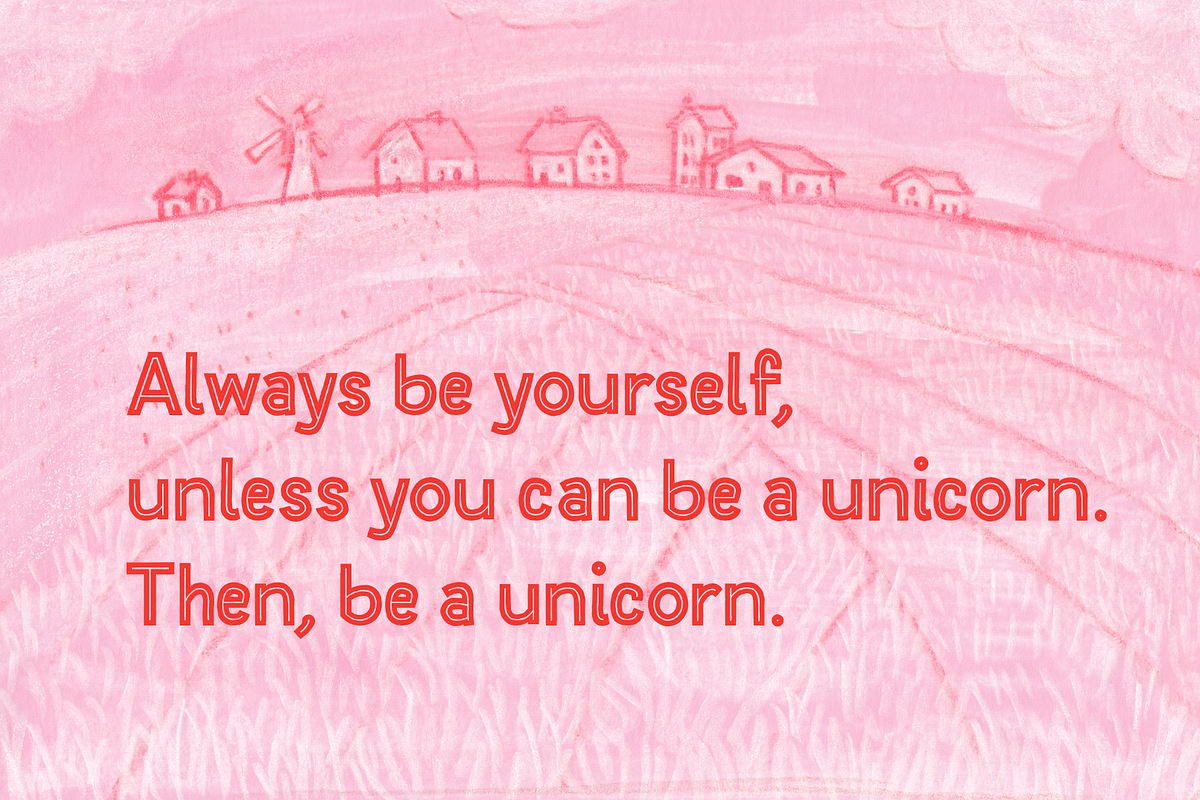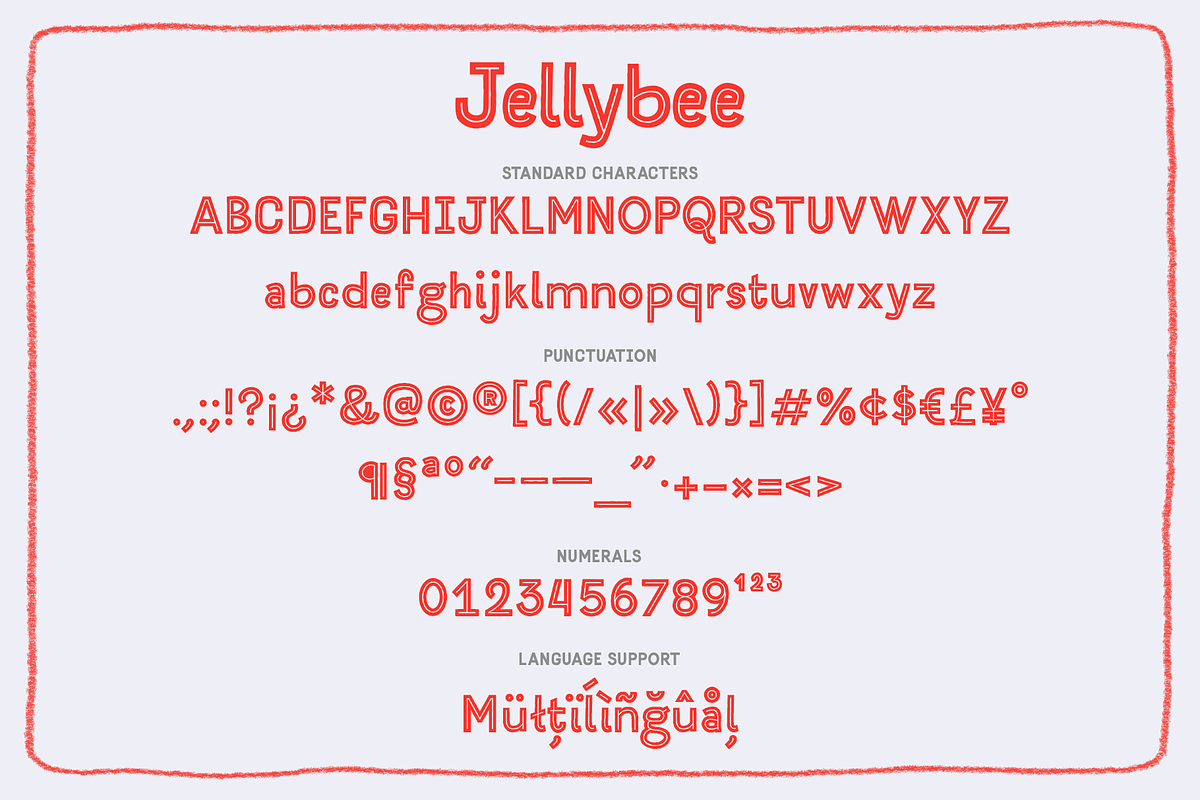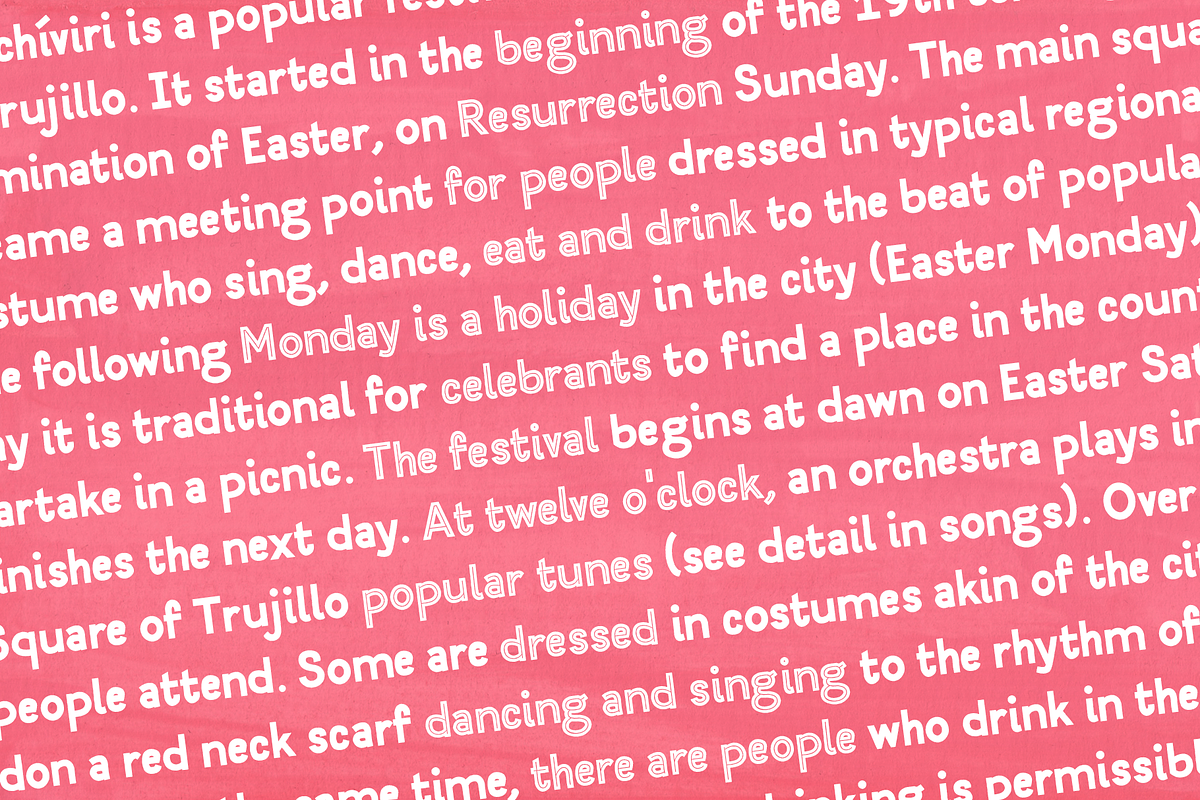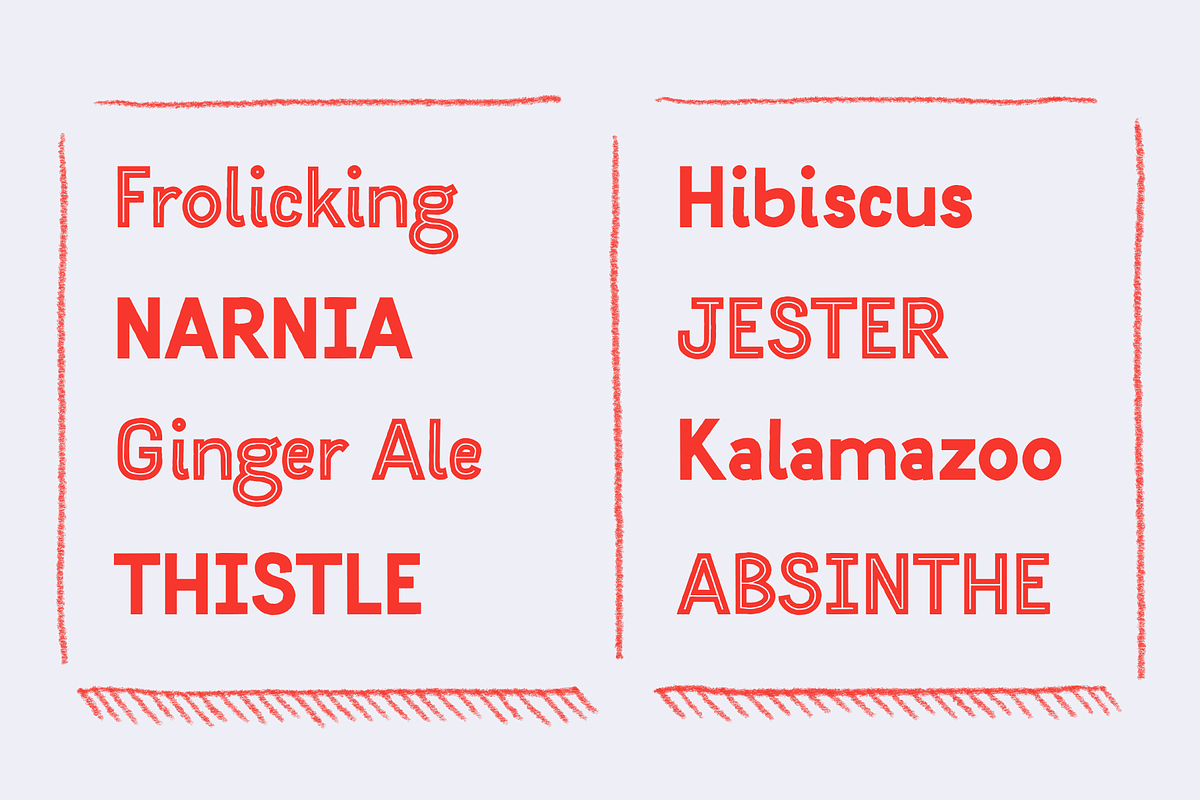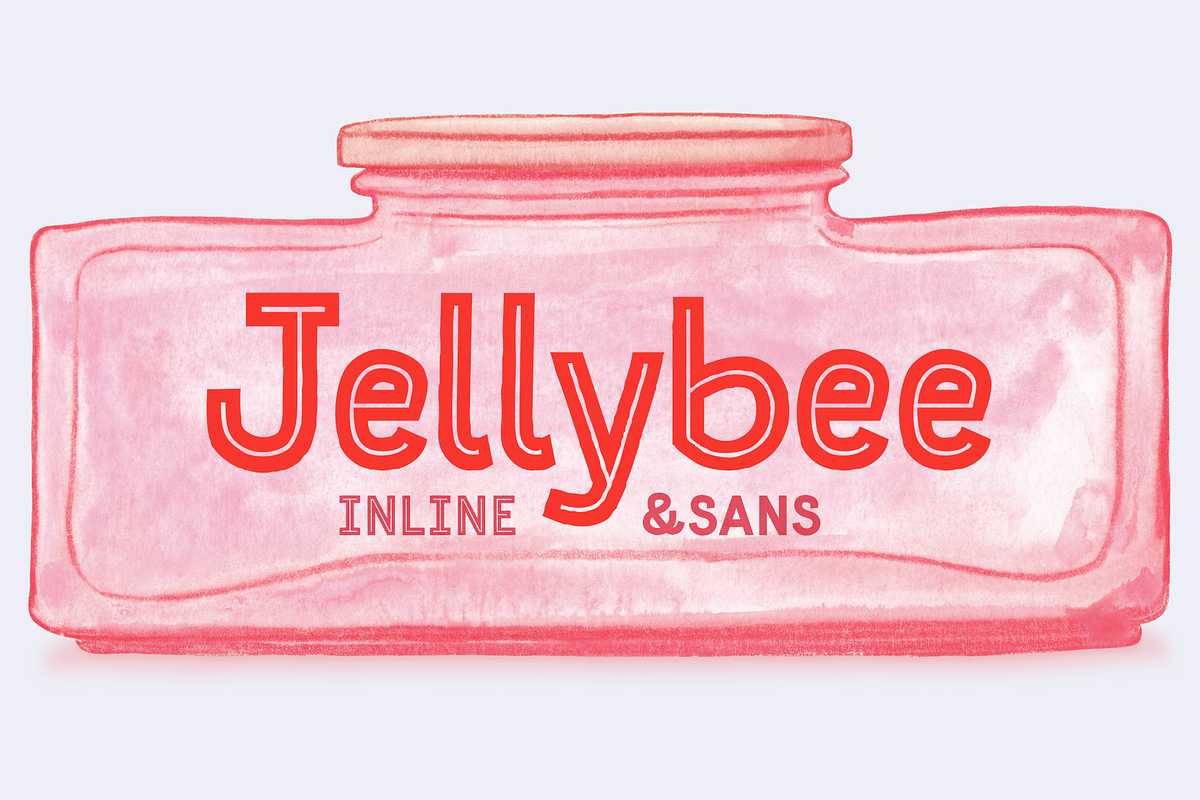
Jellybee Inline & Sans | Hand Drawn
Jellybee Inline & Sans | A Hand Drawn Quirky Sans Serif
Jellybee is a hand drawn, rough edged quirky sans serif typeface that is ideal for use together with hand drawn illustrated artwork. It couples the organic and friendly look of a hand drawn typeface with the legibility and clarity of a sans serif.
Jellybee Inline will particularly work well with holiday and celebration related illustrations as well as children's books, greeting cards, etc., bringing about a warm and friendly expression.
- Extensive punctuation